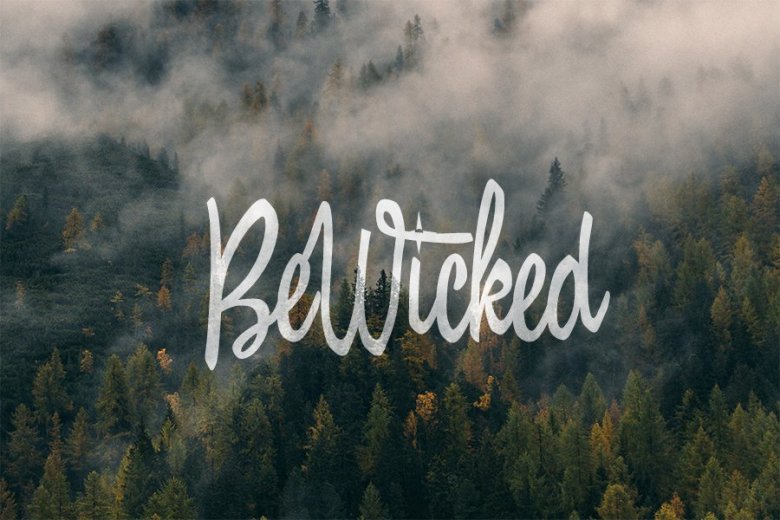
BeWicked Font
BeWicked is a hand-drawn script font with irregular shapes and personal touch. This free font give the feeling of natural lettering combined with beautiful calligraphy writing style. BeWicked Font available for free download in ttf TrueType format.